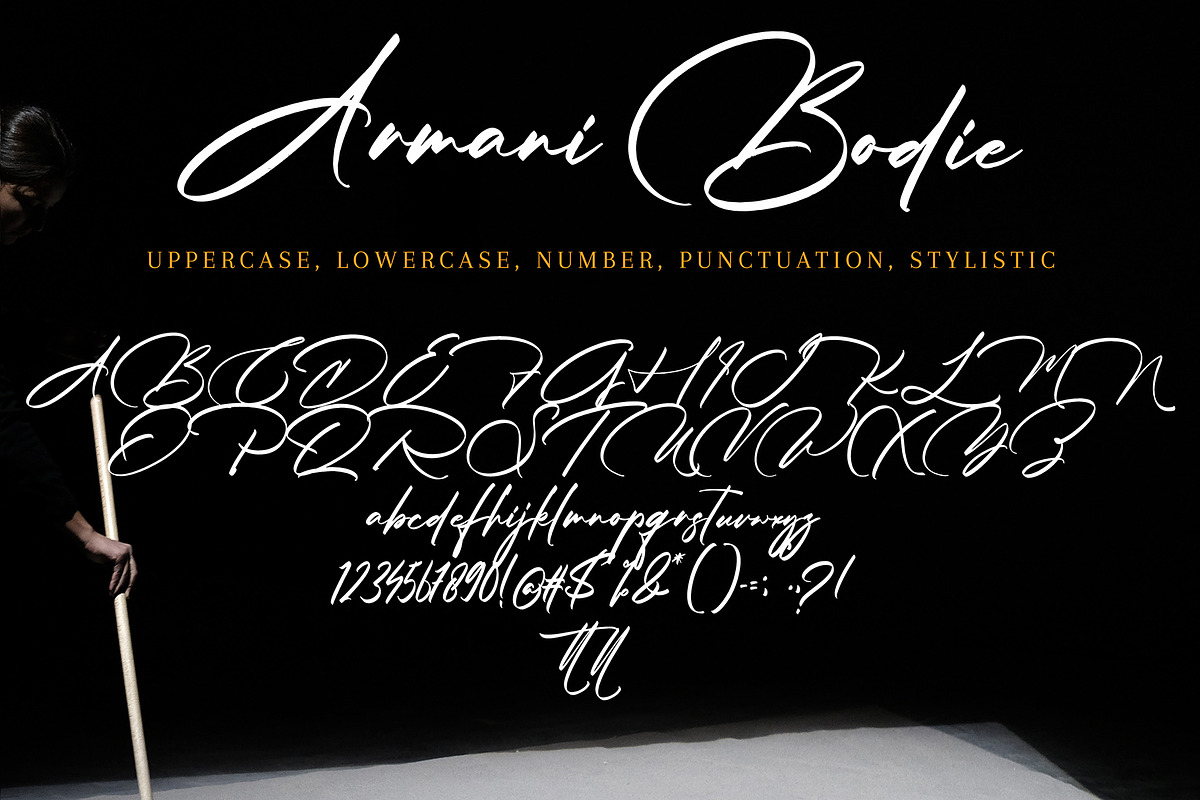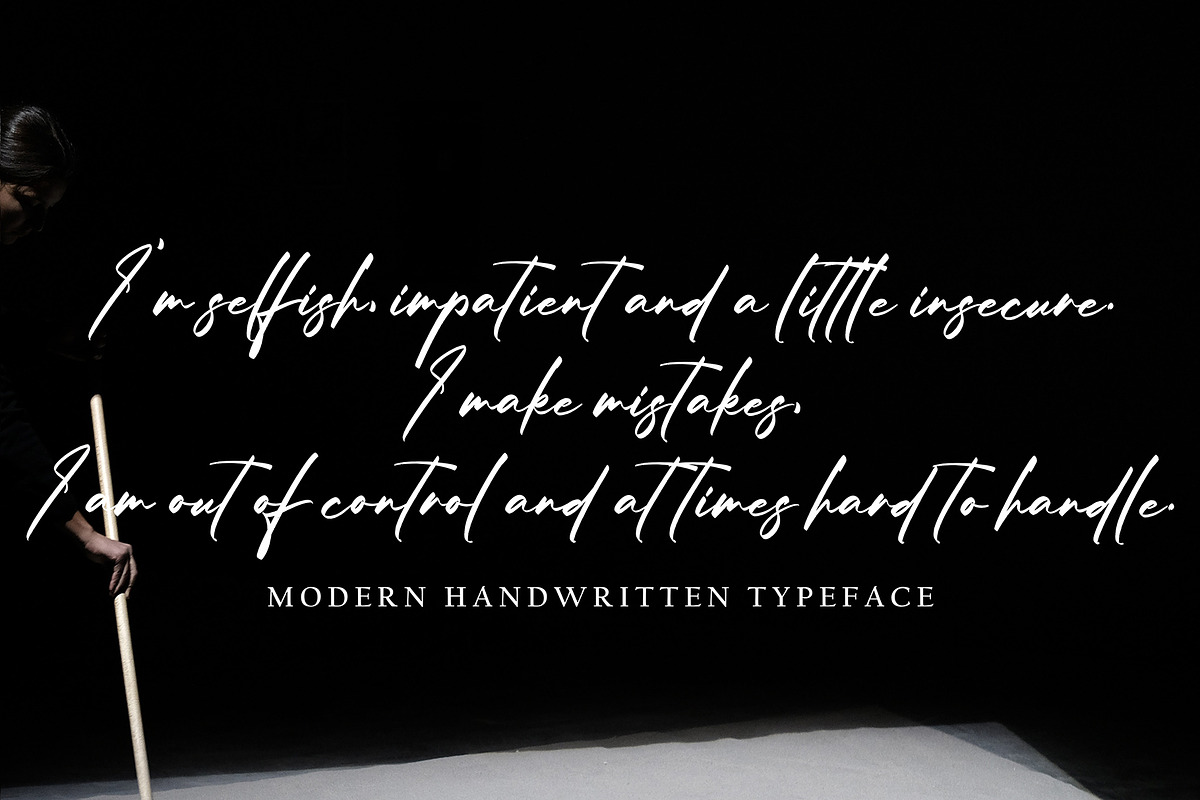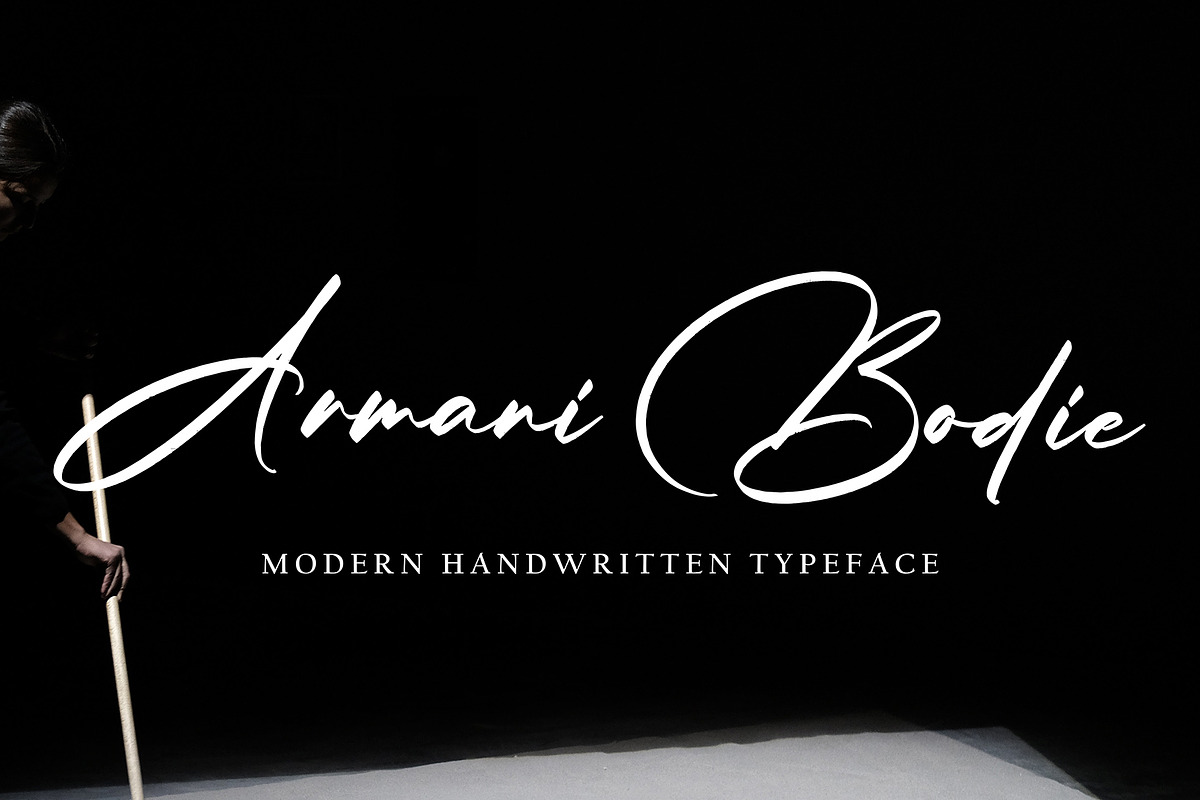
Armani Bodie
Armani Bodie with new style, this font will perfect for many different project ex: quotes, logo, blog header, poster, banding, letter, invitation, stationery, etc...